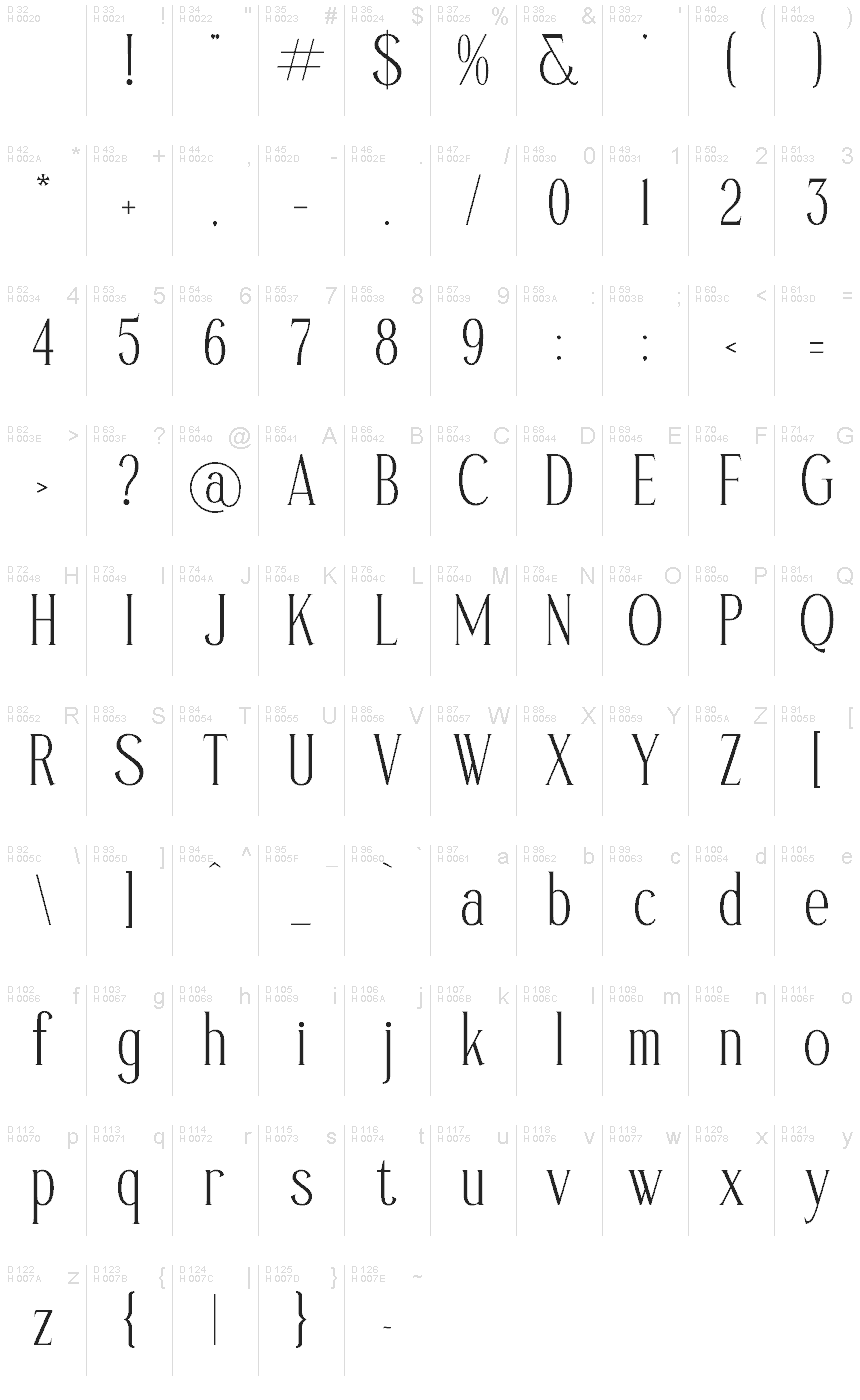
Sufinter
Sufinter font is a free serif font from Storytype Studio with condensed, elegant, and sophisticated characters. A refined classic style inspired this font with a modern twist for fascinating readability. The font blends perfectly between the traditional and modern touches resulting in stylish visuals.
Use this typeface in branding projects, headlines, signage design, handwritten quotes, advertising titles, publication covers, posters & billboards. Other uses are packaging designs for cosmetics and electronic products as well as business cards.